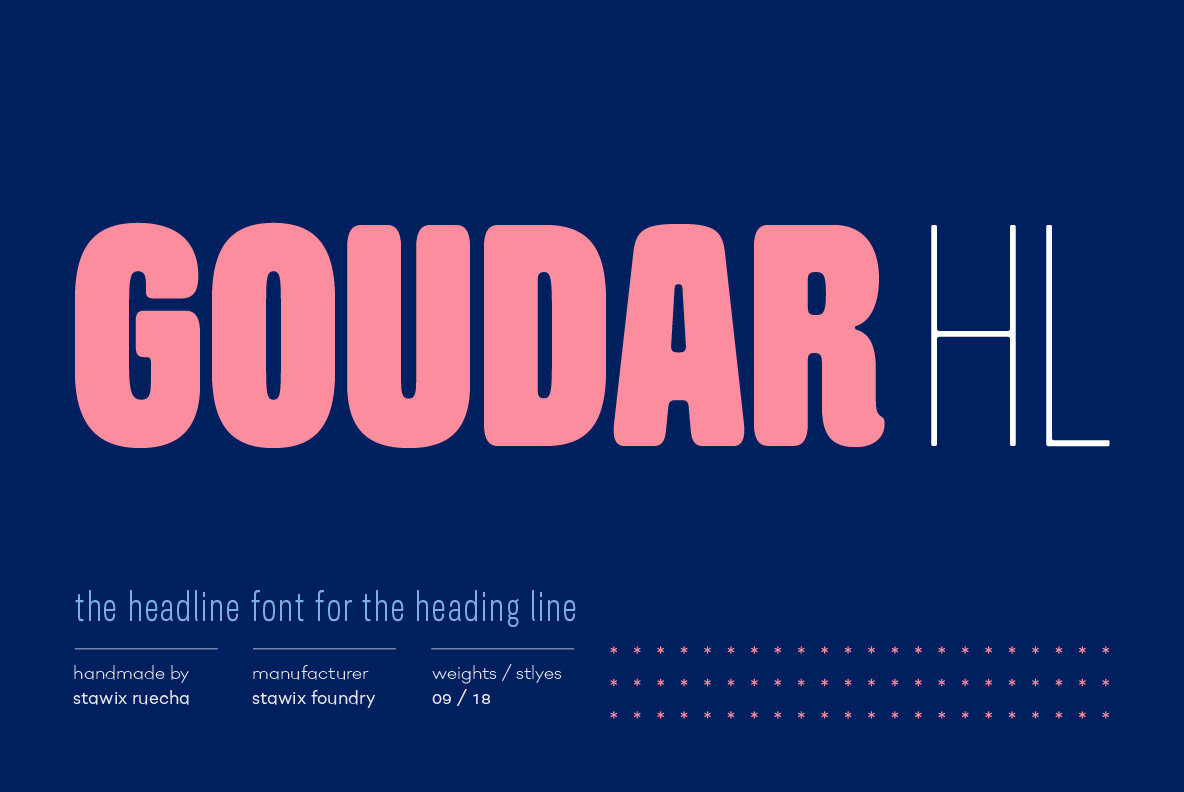
Goudar HL Font
Goudar HL Font is perfect for heritage preservation projects, cultural foundation branding, traditional craft workshops, historical society publications, museum exhibition materials, artisan guild communications, cultural heritage tourism, and traditional arts education where cultural preservation and artistic legacy are celebrated.
What makes Goudar HL Font so exciting is its profound ability to honor cultural heritage through timeless letterforms that embody the wisdom and craftsmanship of traditional artistic practices while maintaining excellent contemporary readability. The dignified character design reflects the enduring value and cultural significance that makes heritage preservation essential for future generations.
The Goudar HL Font family includes light, regular, medium, bold, and ornamental weights, with heritage-inspired decorative elements and traditional cultural ornaments that provide comprehensive tools for creating authentic cultural branding and heritage preservation design systems.
This distinguished typeface represents the bridge between cultural past and present, combining traditional heritage values with contemporary preservation communication requirements. The Goudar HL Font Free Download gives cultural institutions access to typography that communicates historical significance and artistic legacy.
The font's classical character proportions and traditional details create immediate associations with cultural heritage and traditional craftsmanship preservation. Each letterform has been crafted to evoke the skill and cultural knowledge that defines authentic heritage arts and traditional cultural practices.
Goudar HL Font excels in creating meaningful communications that inspire cultural appreciation and heritage preservation efforts. The typeface's traditional character makes it ideal for museums, cultural centers, and heritage organizations dedicated to preserving and sharing traditional arts and cultural knowledge.
From cultural festivals to heritage craft centers, this font brings cultural authenticity that resonates with audiences committed to preserving traditional arts and cultural heritage for future generations. The versatile design maintains its heritage character across both traditional preservation materials and modern digital cultural platforms.